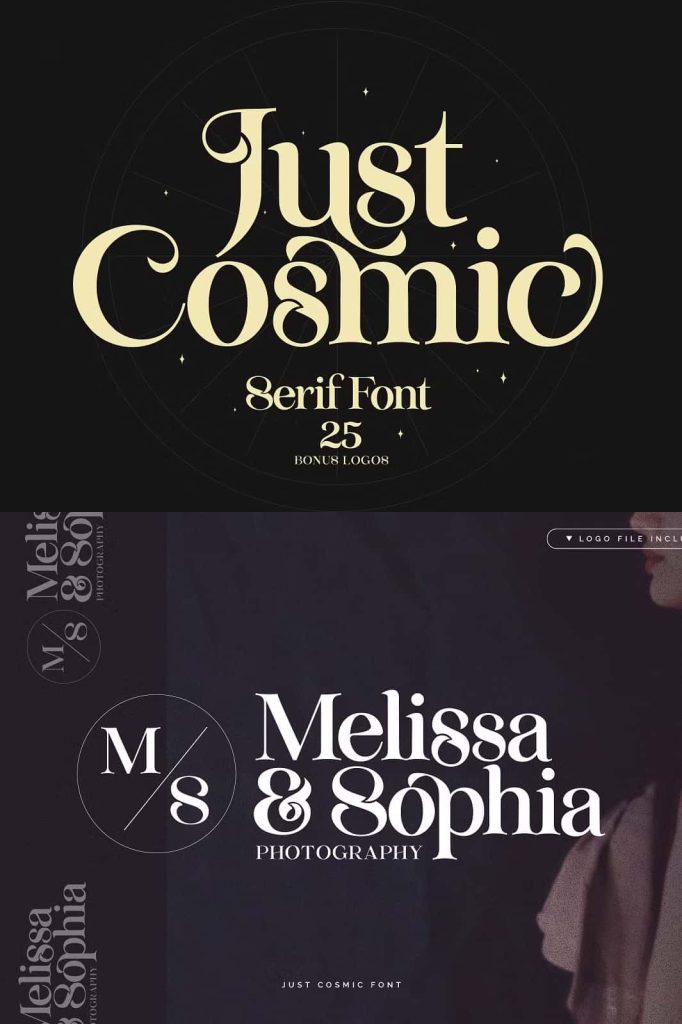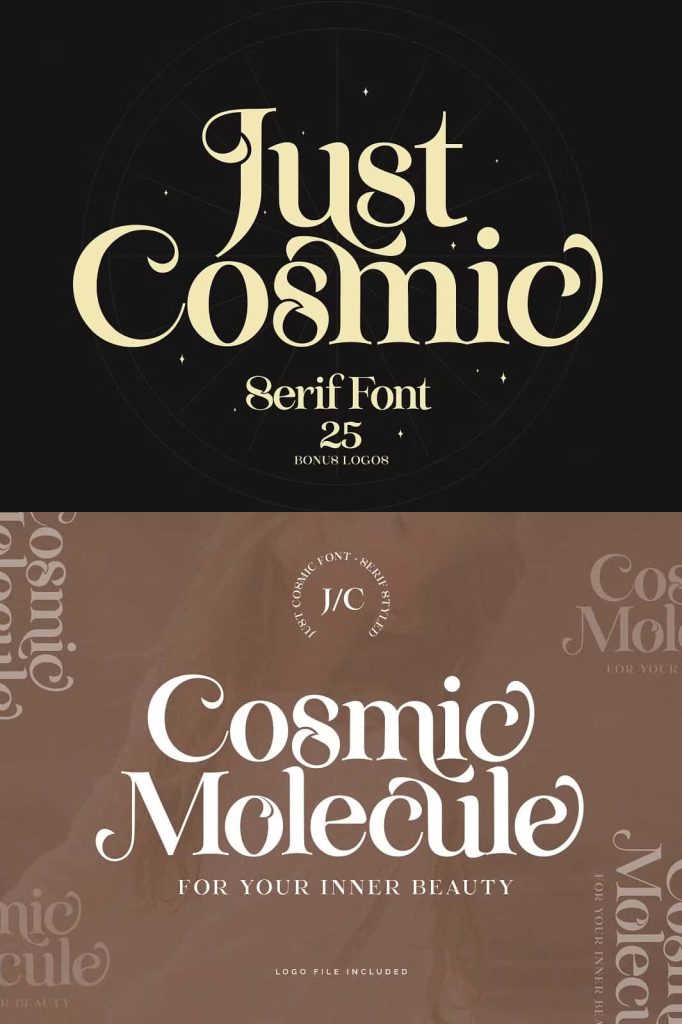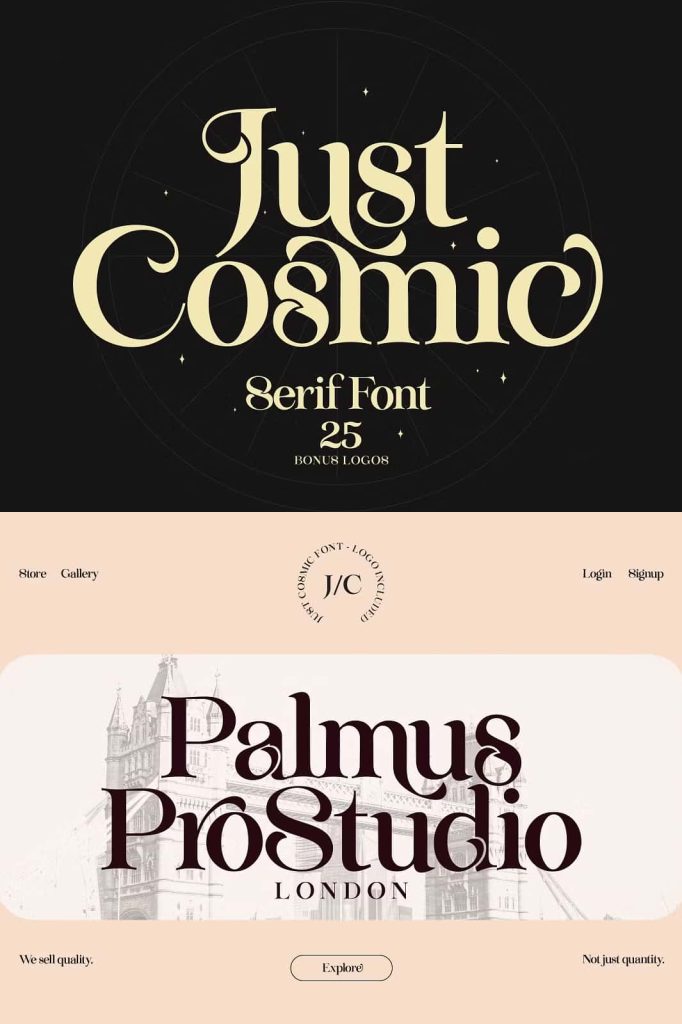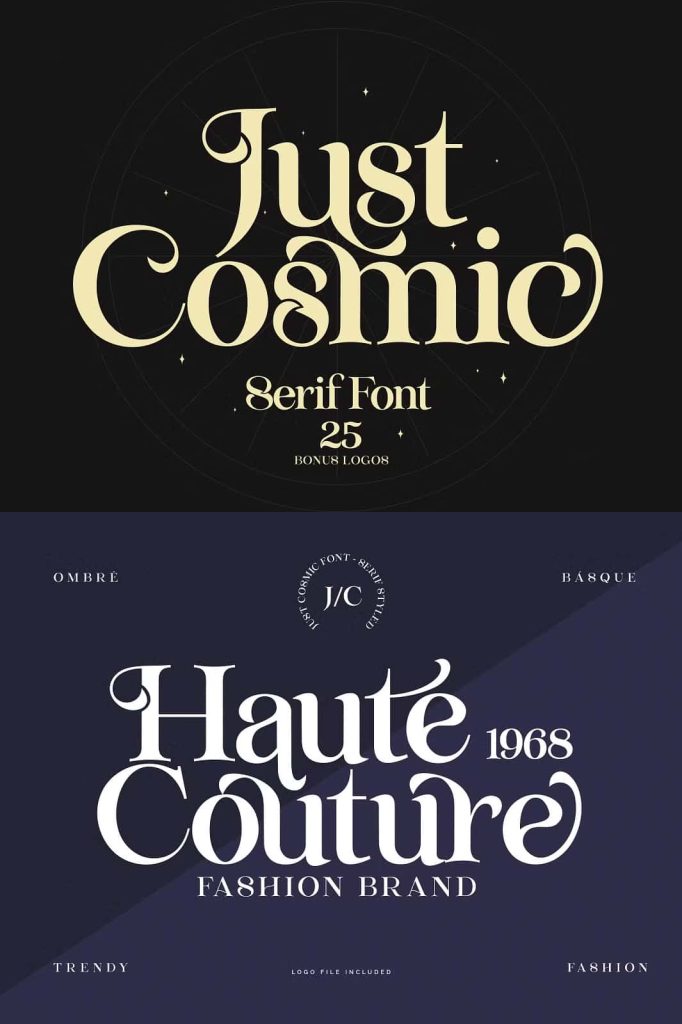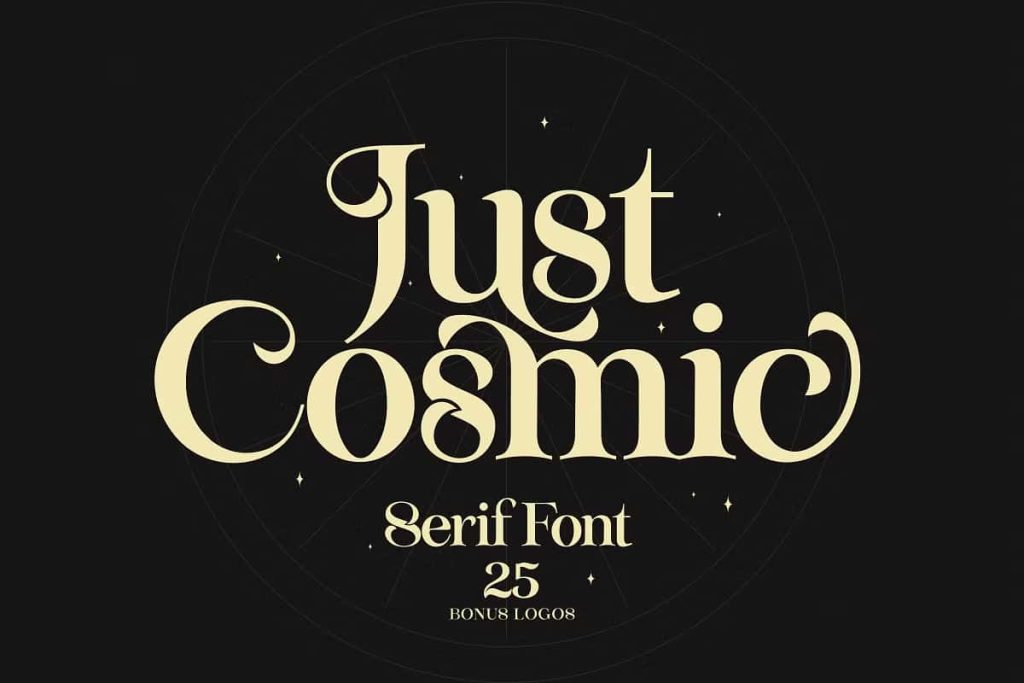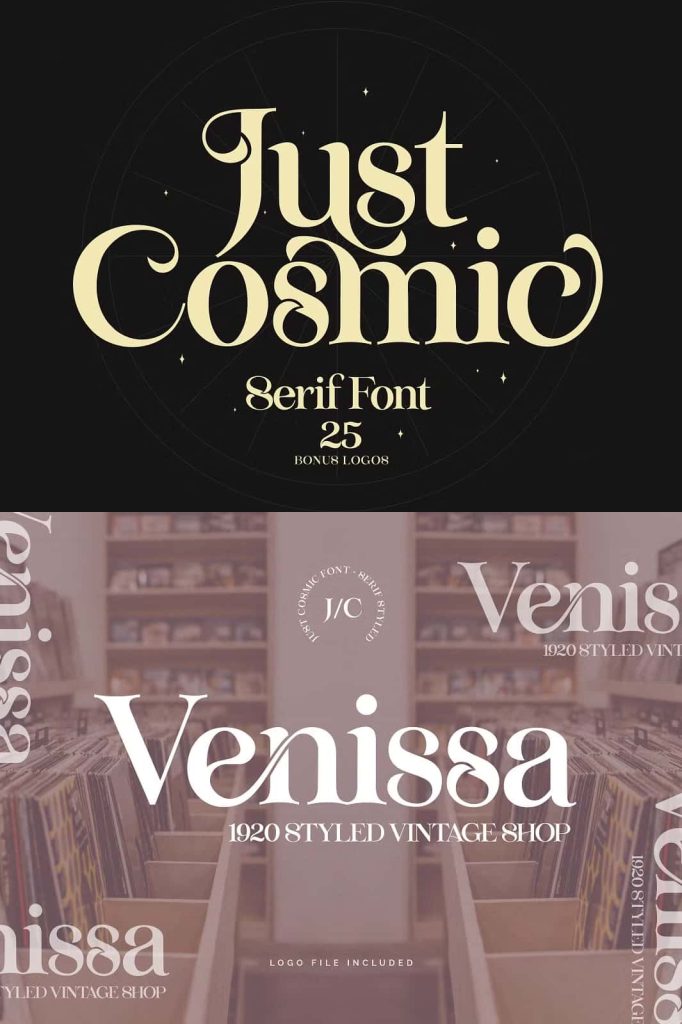
Just Comic is a magical modern vintage font will stylistic alternates and beautiful cutout ligatures. This font pack also contains 25 Premade Logos. All Logos are fully editable with Adobe Photoshop or Illustrator. Just Cosmic is magical in every way. With beautiful stylistic alternates and ligatures, the font will be your best choice for both Text type and Display Type. Just cosmic is designed to fill the text gaps between serif text lines.